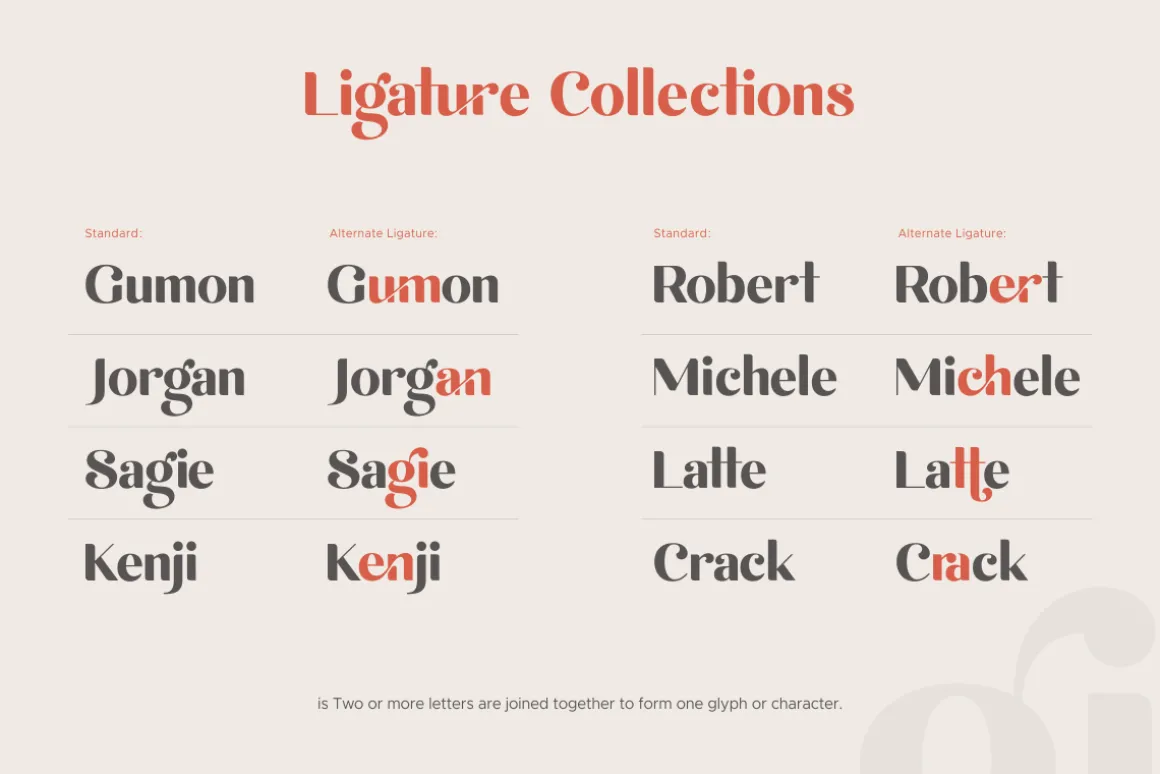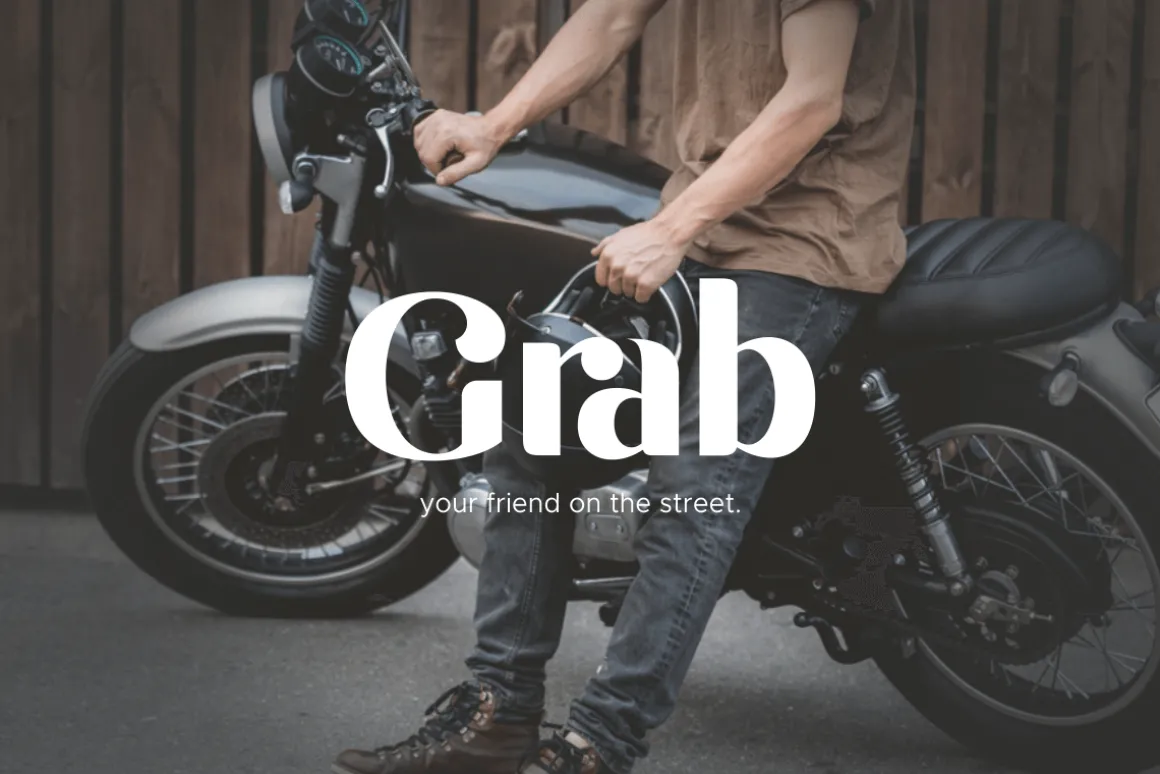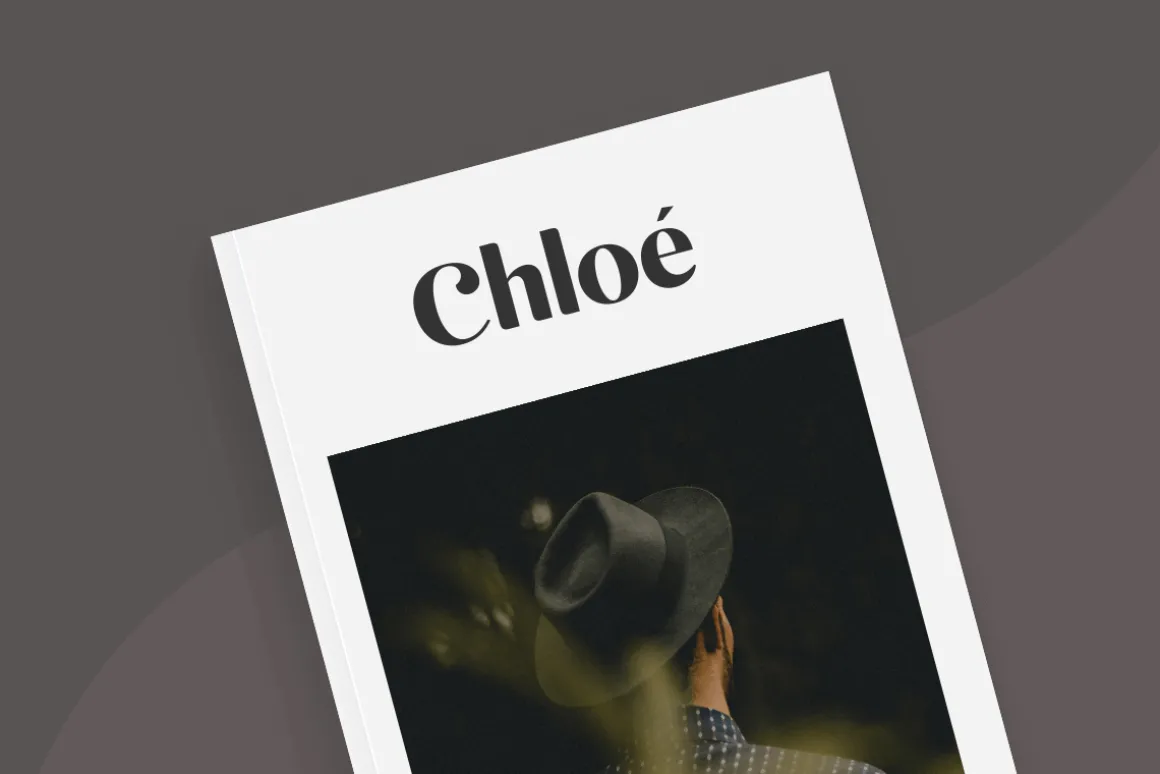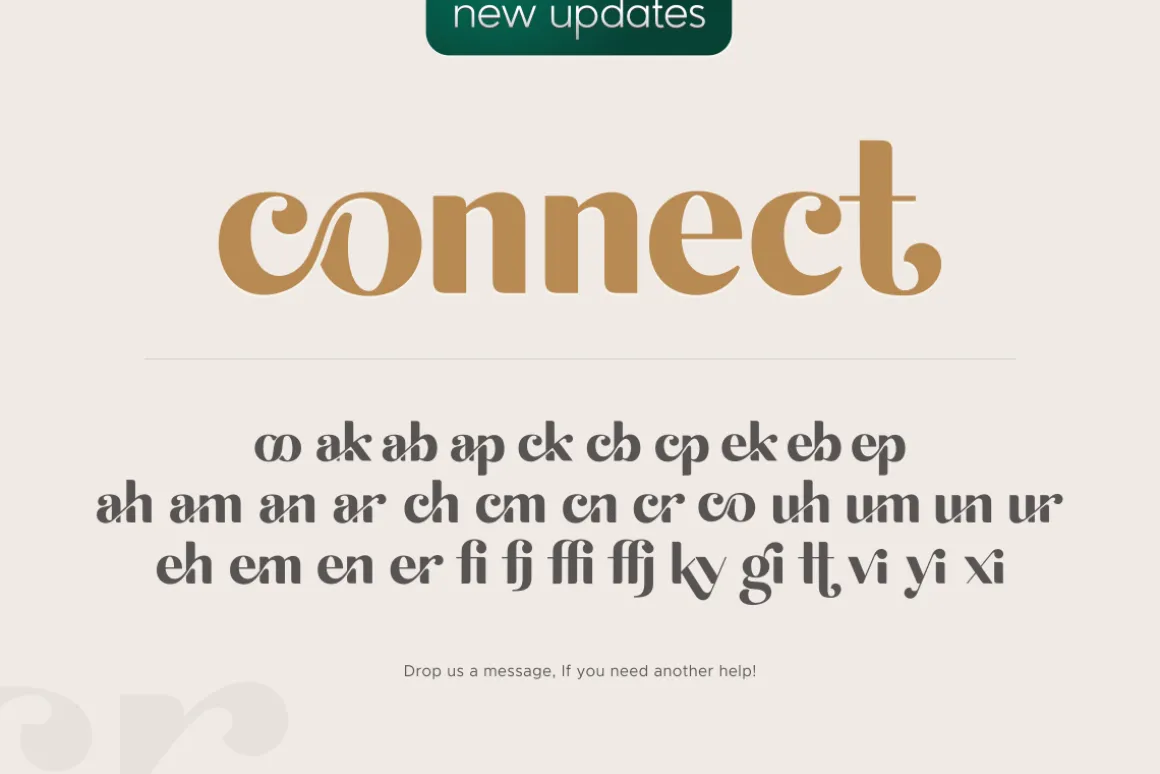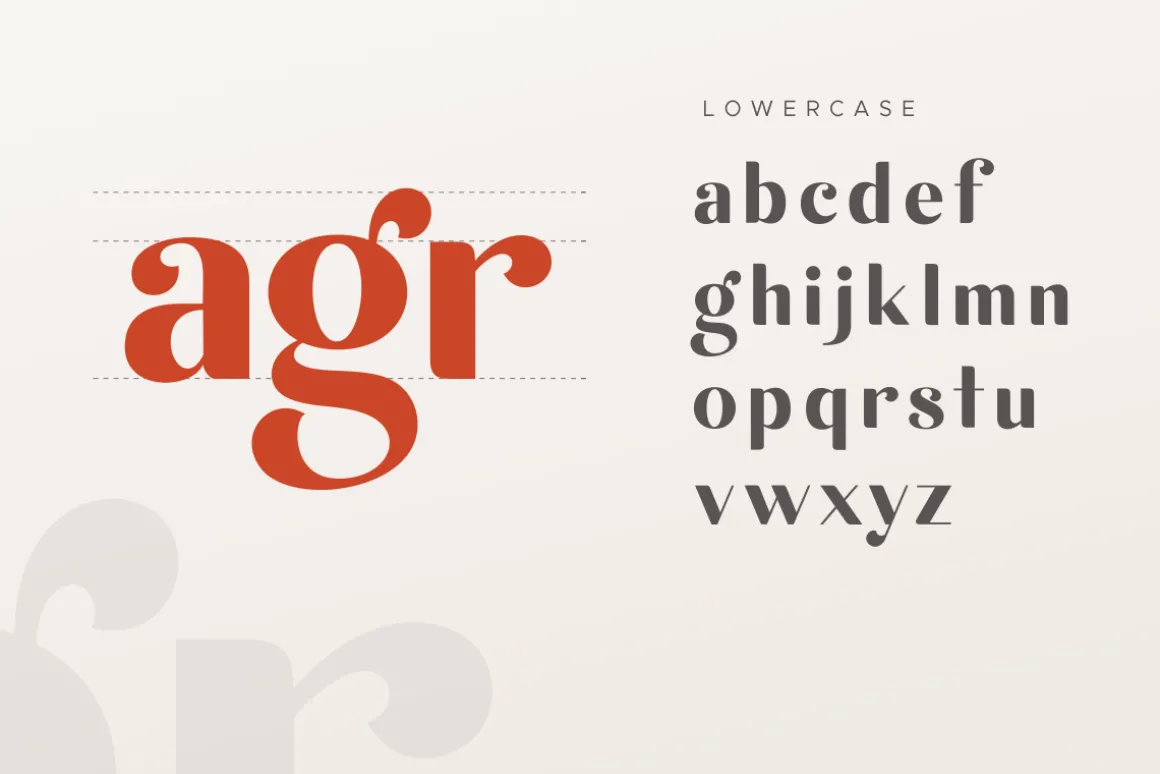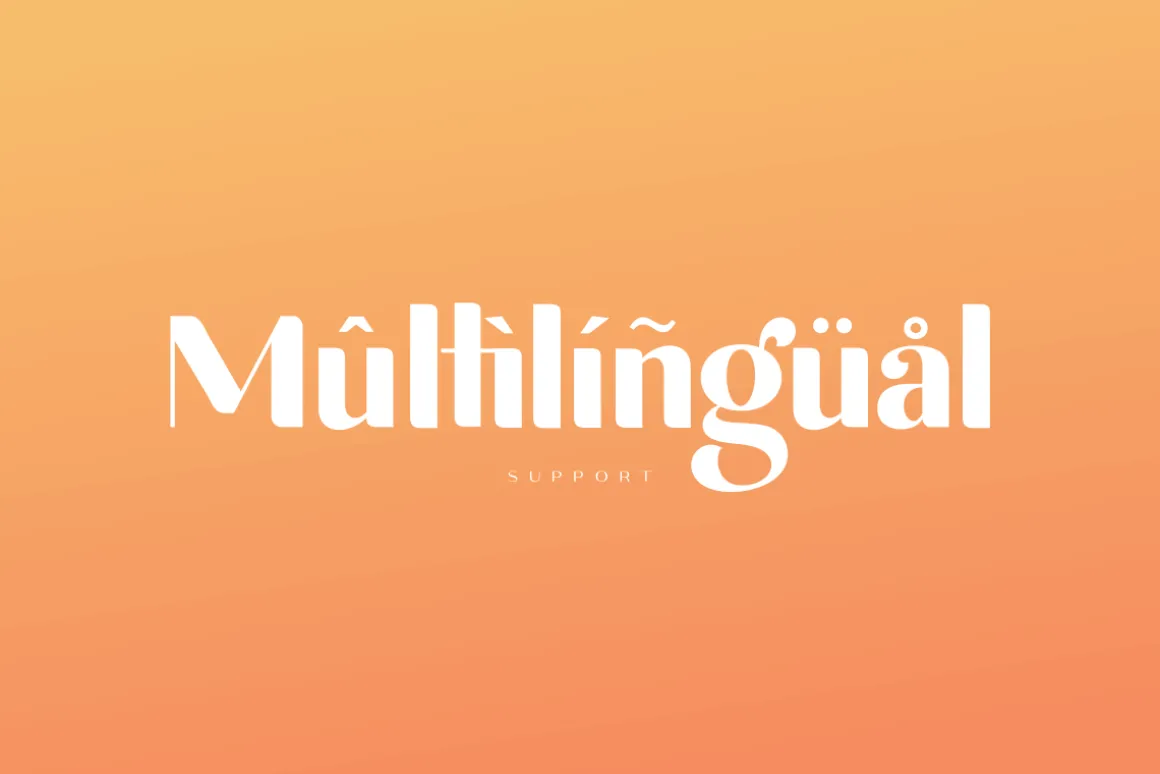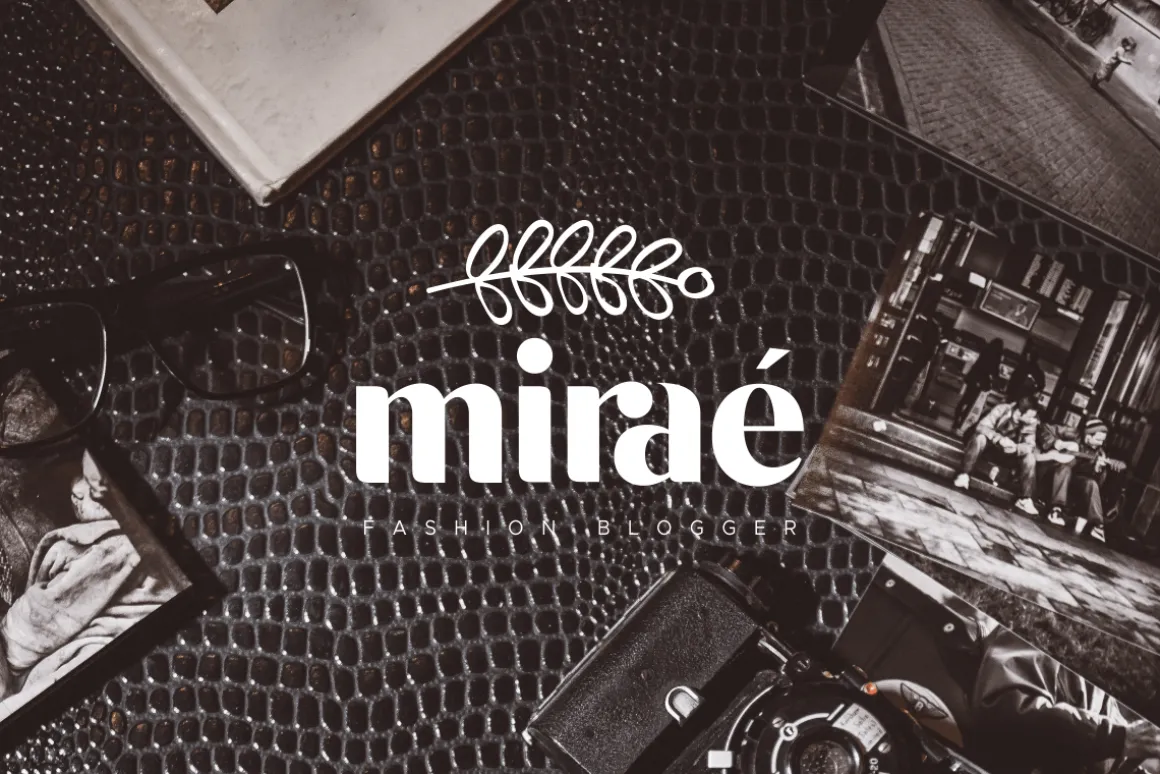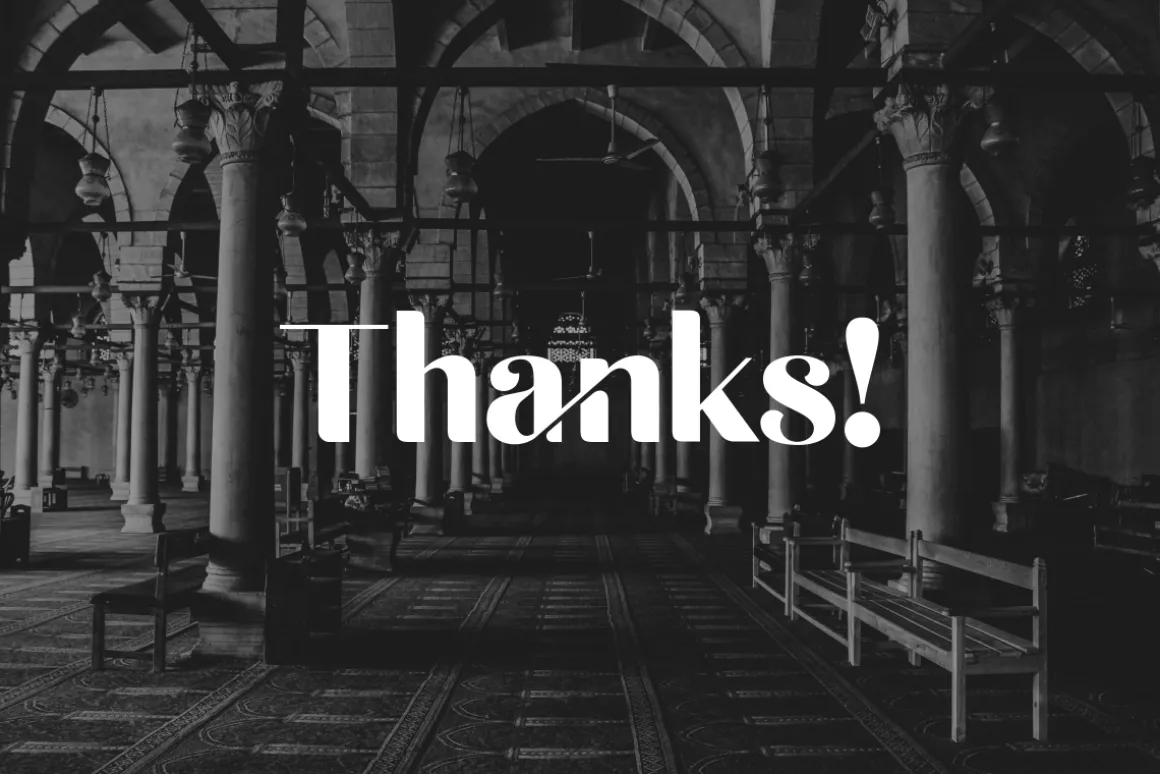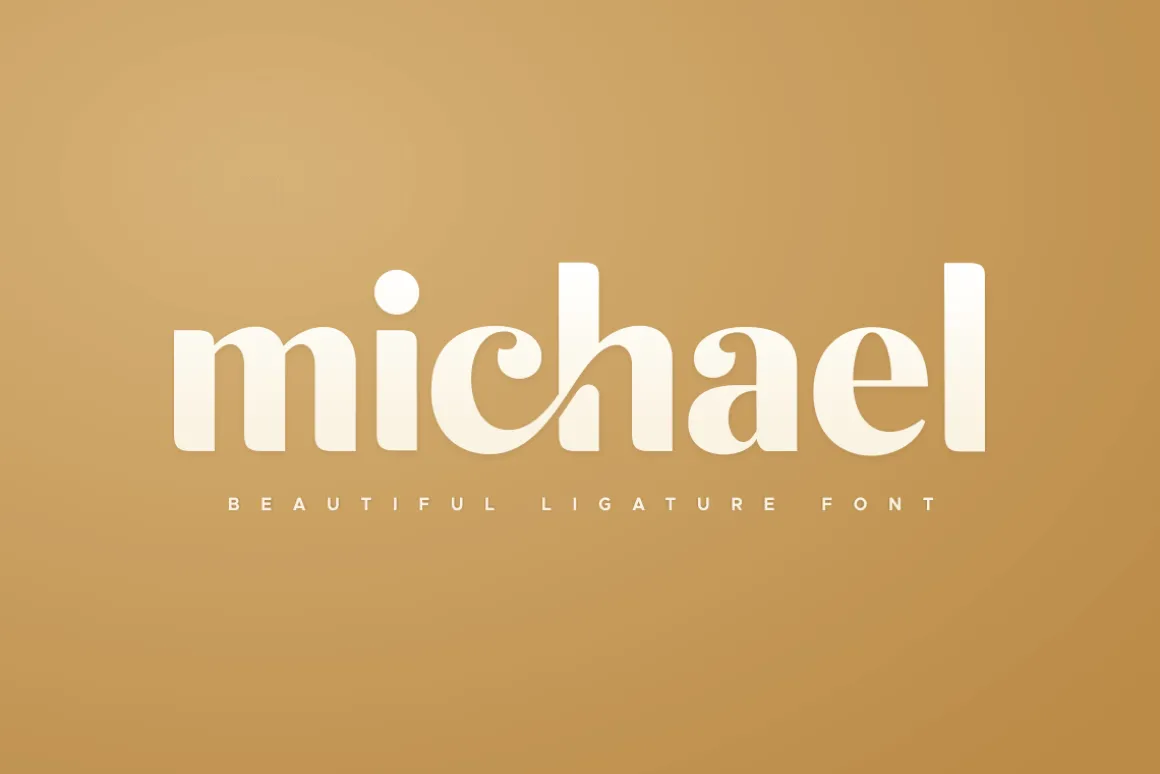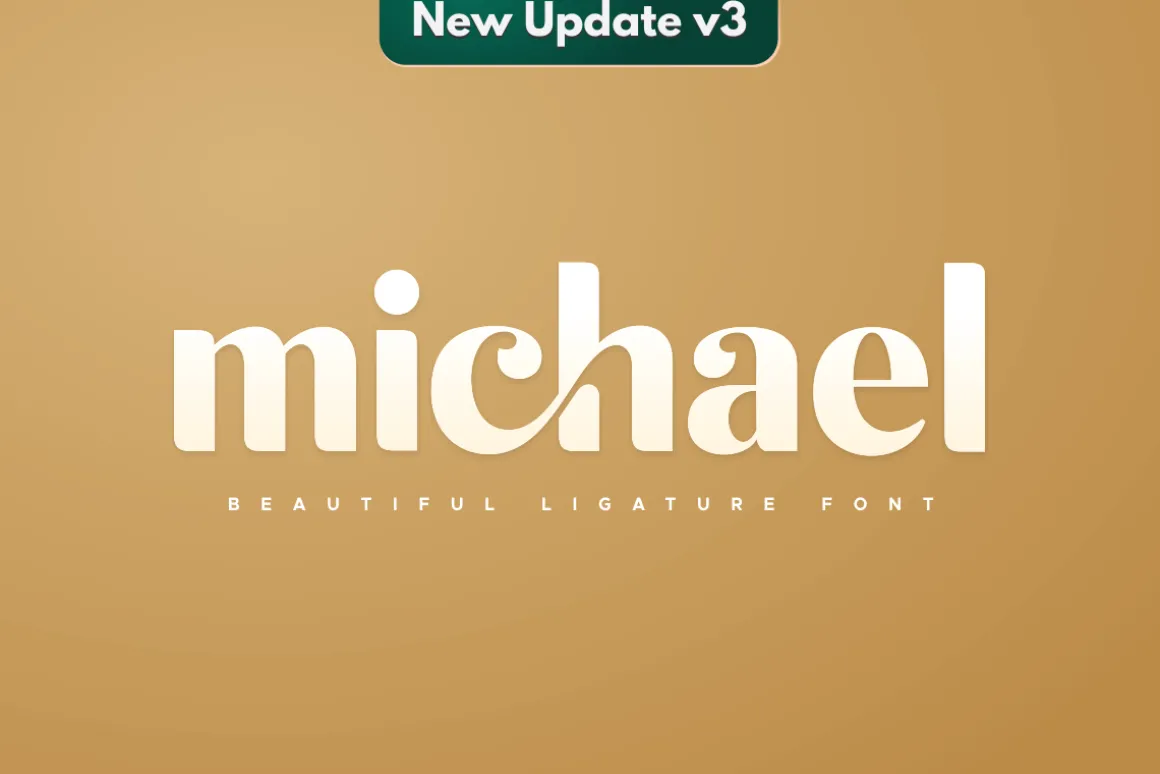
michael font is a well-balanced contemporary font with beautiful ligatures. It is a display font with moderate contrast that perfect for branding projects, logo, wedding designs, social media posts, advertisements, product packaging, product designs, label, photography, watermark, invitation, stationery, and any projects, it makes with a high level of legibility.
Character set A-Z
Uppercase & Lowercase
Numerals & Punctuation
Accented Characters (West Europe)
Ligature & Stylistic alternate